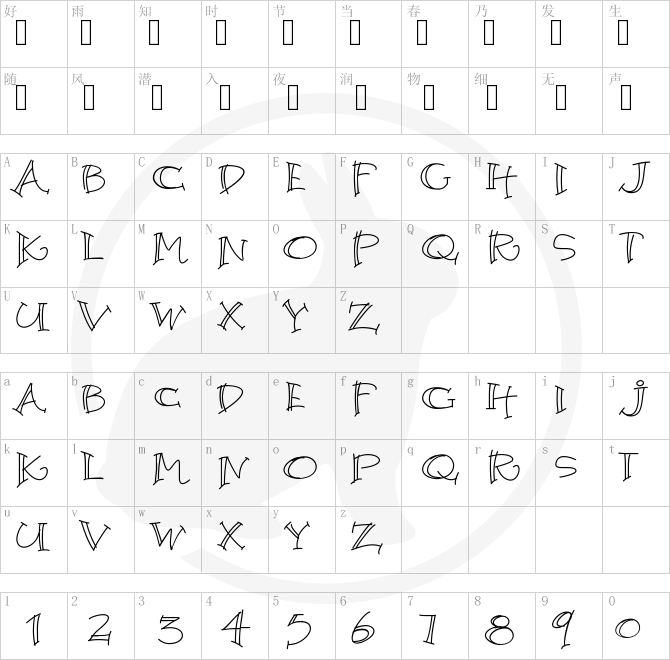
- Font Name:K26Argento
K26Argento.ttf is a very beautiful artistic font, K26Argento.ttf is widely used in the design and printing of various books and pictures,K26Argento.ttf has a strong visual impact,K26Argento.ttf is a commonly used font in newspapers, magazines and books, and is used in posters, e-commerce Poster design, store design, logo design, font design and other fields.K26Argento.